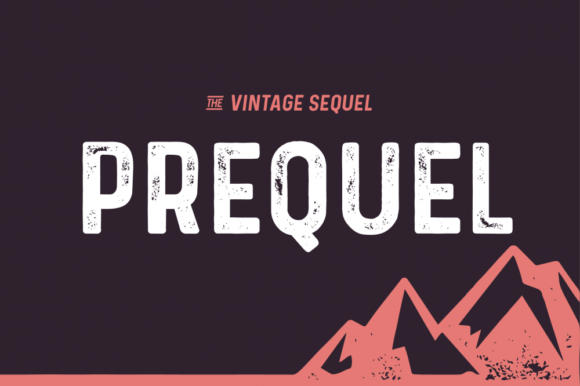
Introducing Prequel Font, the perfect fusion of boldness and elegance, designed to breathe new life into your creative projects. Created by the renowned Shaped Fonts, this captivating display font is sure to captivate your imagination and add a touch of vintage charm to any design.
With its chunky letterforms and timeless appeal, Prequel Font brings a sense of nostalgia reminiscent of classic old books. Its distinctive style evokes a sense of authenticity and sophistication, making it the ideal choice for those seeking a touch of vintage flair in their designs.
Whether you're working on a formal project or aiming for a more relaxed and informal look, Prequel Font has got you covered. Its simple and clean design ensures that your message will be delivered with clarity and impact, leaving a lasting impression on your audience.
But Prequel Font is not just a font; it's a gateway to a world of creativity. By downloading this versatile typeface, you gain access to endless possibilities. From designing stunning book covers to crafting eye-catching logos, Prequel Font is your secret weapon for creating visually striking masterpieces.